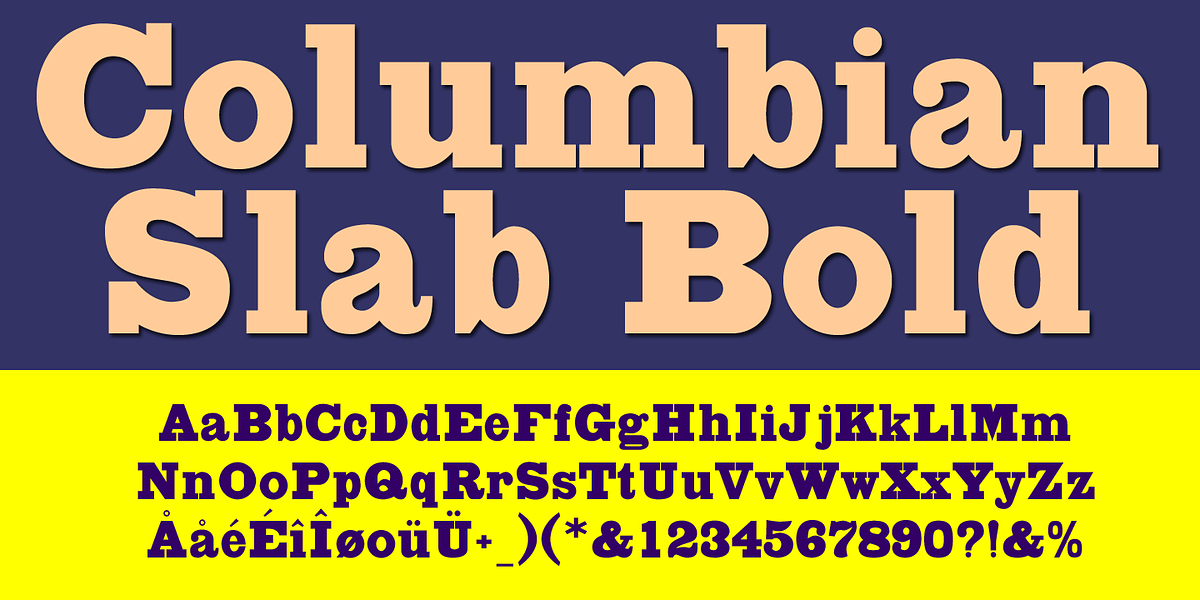
Columbian Slab
Columbian Slab Bold is a typeface inspired by the Egyptian style popular in the 19th century. It's characterized by its bold weight and distinctive slab serifs. This font would be suitable for headlines and branding where a strong, vintage aesthetic is desired.